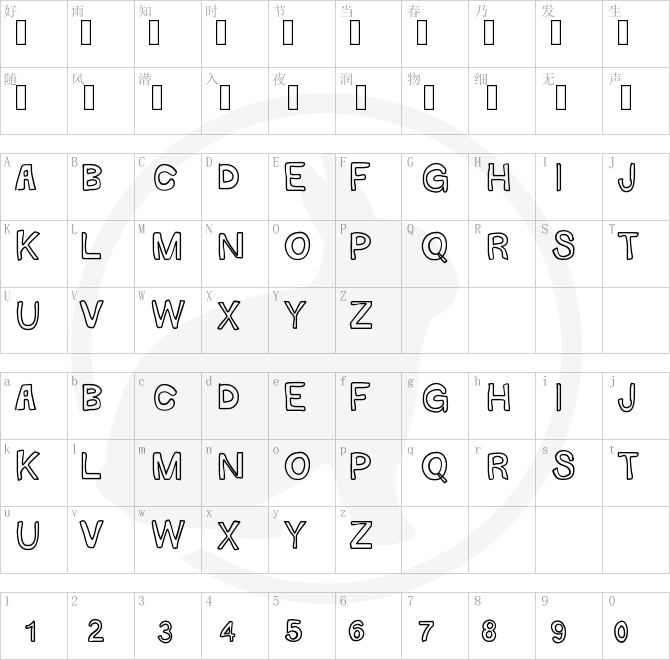
- Font Name:GaelleMAJUSCULE
GaelleMAJUSCULE.ttf is a very beautiful artistic font, GaelleMAJUSCULE.ttf is widely used in the design and printing of various books and pictures,GaelleMAJUSCULE.ttf has a strong visual impact,GaelleMAJUSCULE.ttf is a commonly used font in newspapers, magazines and books, and is used in posters, e-commerce Poster design, store design, logo design, font design and other fields.GaelleMAJUSCULE.